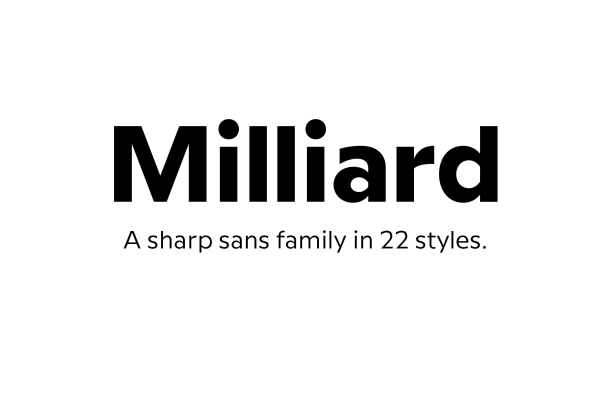
Milliard Sans Serif Font Family
Introducing the new font family, Milliard Sans Serif Font Family designed by Rene Bieder. Milliard is a sharp and contemporary family of 22 fonts, taking inspiration from grotesk typefaces developed in the early twentieth century.
Its open counters on lowercase “a”, “c” or “e” allow for great legibility in small text sizes, supporting an unobtrusive, clear and modern appearance. When set in headlines, Milliard reveals a part humanistic, part geometric voice ranging from elegant and open thin weights to athletic and powerful heavy weights.
Milliard comes with many opentype features including stylistic sets, old style numbers, arrows and many more making it a perfect choice for professional type setting in any digital or analog surrounding that requires a clear and modern voice.